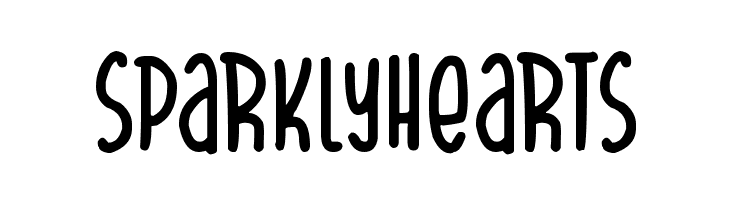
A playful, hand-drawn font with rounded characters and a whimsical style.
A playful, bold font with dynamic, irregular letterforms and a whimsical style.